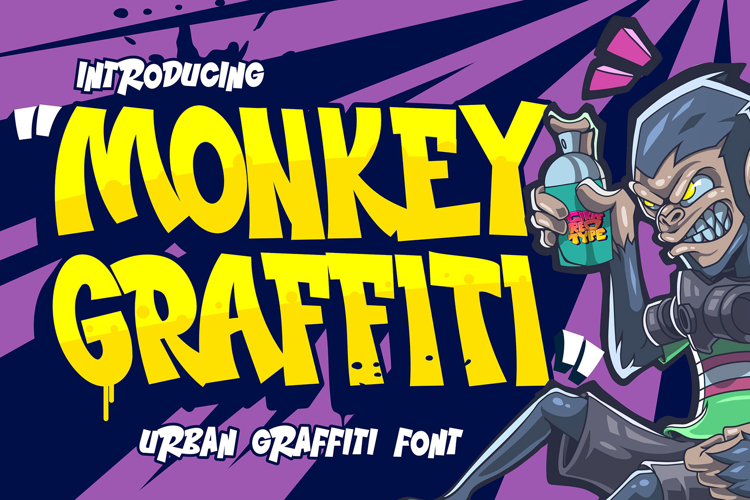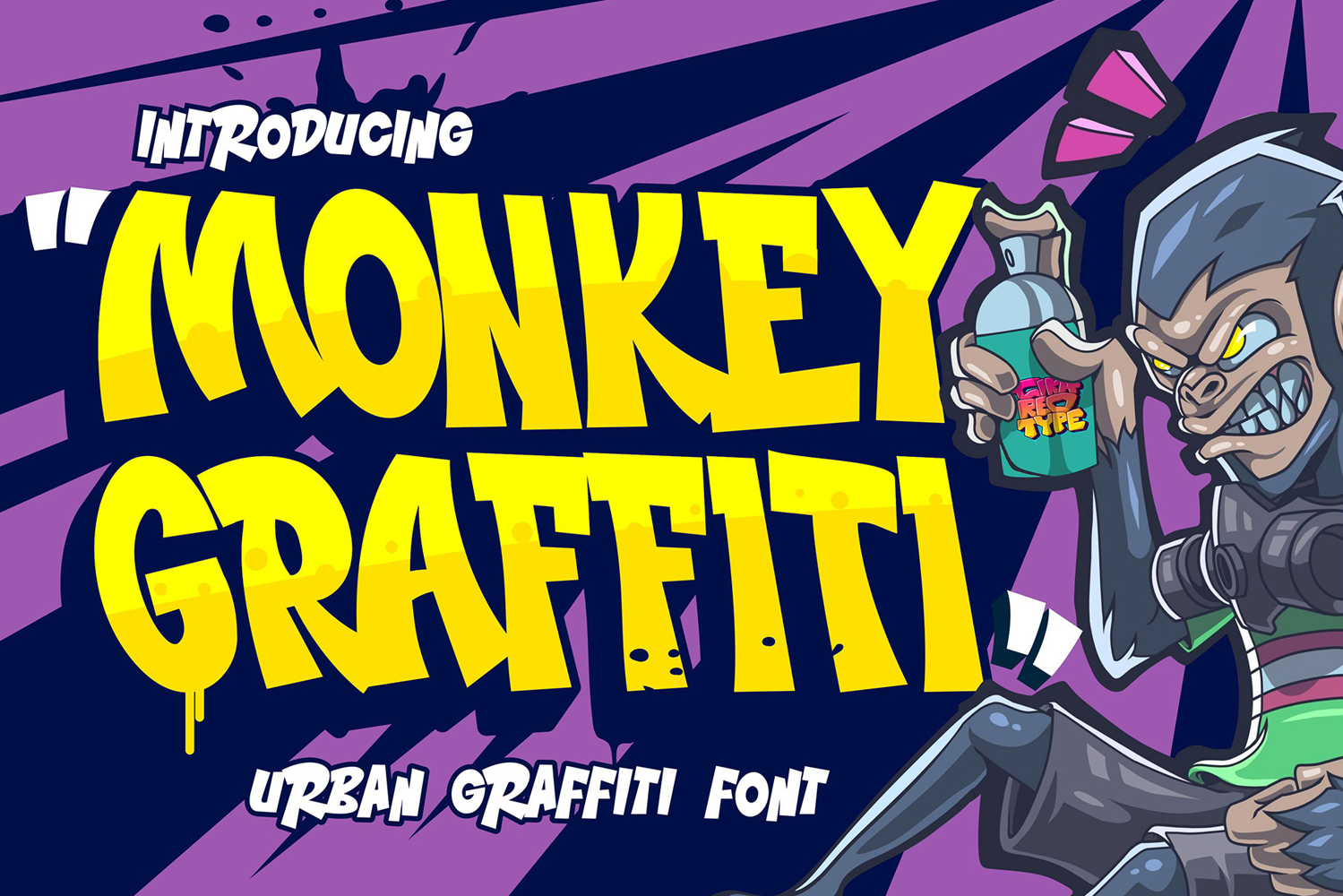
Monkey Graffiti Wild & Bold Urban Graffiti Font
🔥 Monkey Graffiti – Wild & Bold Urban Graffiti Font 🎨
Unleash the raw energy of street art with Monkey Graffiti, a bold and rebellious urban graffiti font designed to capture the essence of the streets! Inspired by real spray-painted tags and hip-hop culture, this font delivers a wild, raw, and expressive feel, making it perfect for streetwear branding, music covers, posters, gaming, and more.
With its dynamic strokes and edgy character, Monkey Graffiti brings authentic street vibes to any project. Whether you're working on urban branding, festival flyers, album artwork, or edgy digital content, this font ensures a high-impact, street-smart look that grabs attention instantly.
💥 Why Choose Monkey Graffiti?
✅ Authentic Graffiti Style – Inspired by street tags and mural art.
✅ Bold & Rebellious – Designed for a raw, expressive, and high-energy feel.
✅ Handcrafted Texture – Real spray-paint details for an urban edge.
✅ Versatile & Eye-Catching – Perfect for posters, branding, and social media.
✅ Multilingual Support – Covers multiple languages for global appeal.
✅ Complete Character Set – Includes uppercase, lowercase, numbers, punctuation, and special symbols.
🎨 Bring the Streets to Your Designs with Monkey Graffiti! 🎨
💡 Perfect for:
🎤 Hip-Hop & Music Branding
📢 Street Posters & Event Flyers
🖌 Merchandise & Custom Prints
🎮 Gaming & Esports Graphics
🎬 Movie Titles & Urban Aesthetics